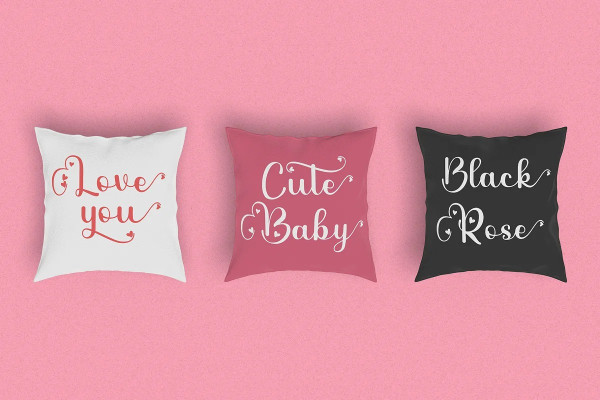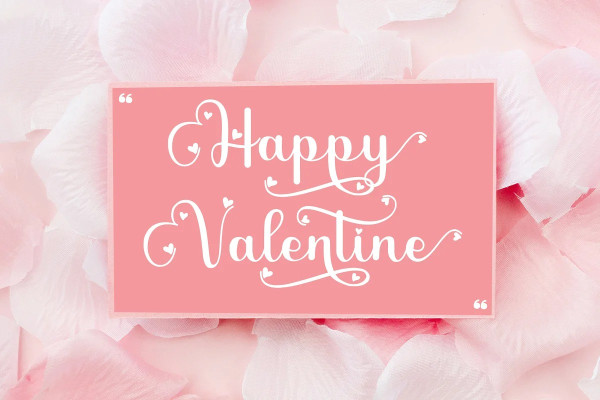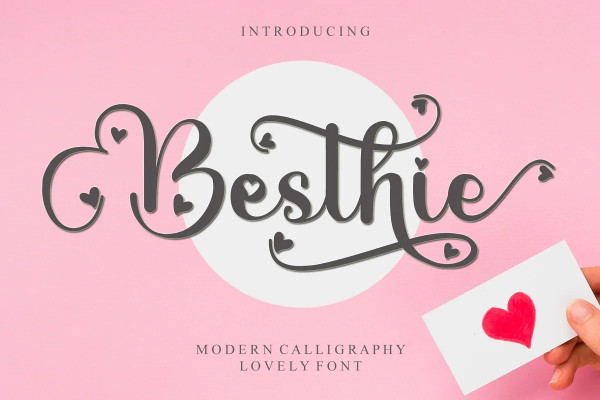
Besthie Font
Besthie Font is a romantic and graceful calligraphy typeface with characters that dance along the baseline. You can use it for various purposes such as logos, wedding invitations, headings, t-shirts, letterhead, signage, labels, news, posters, badges, and so much more.